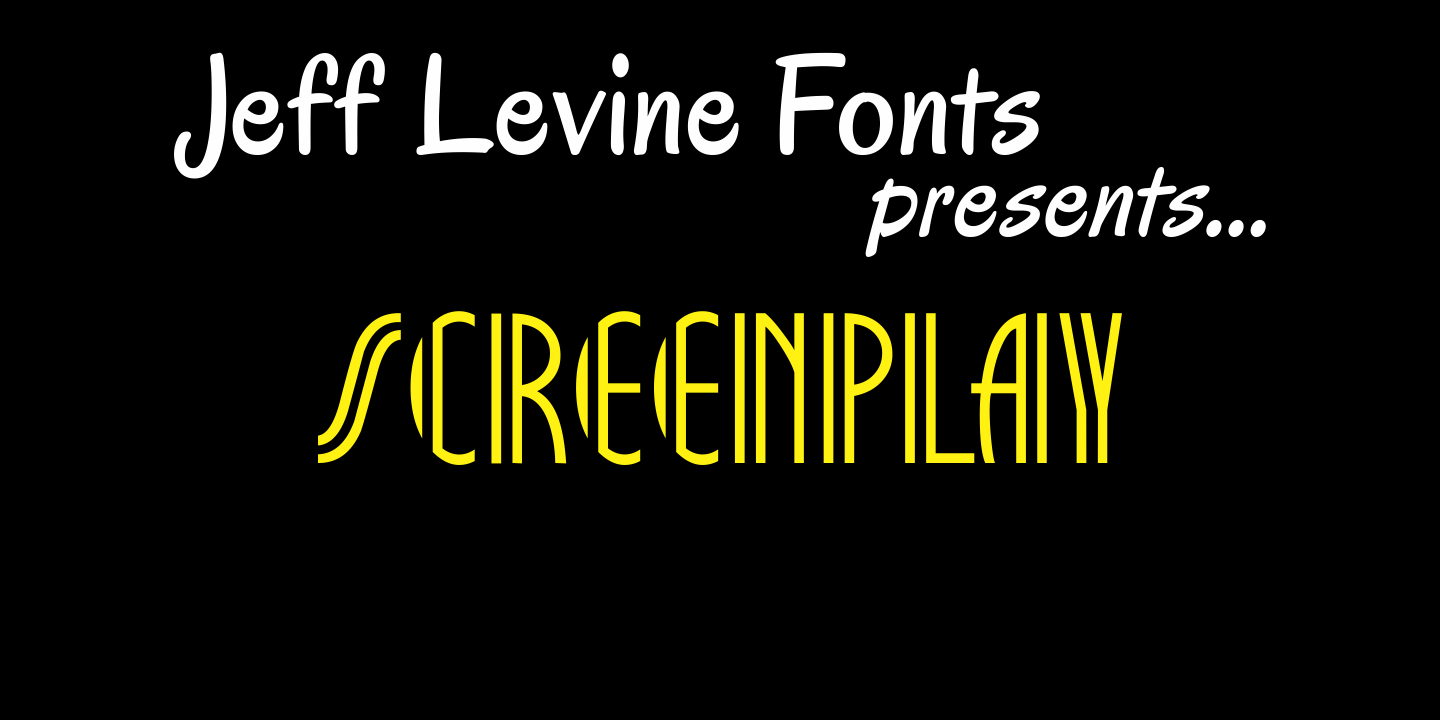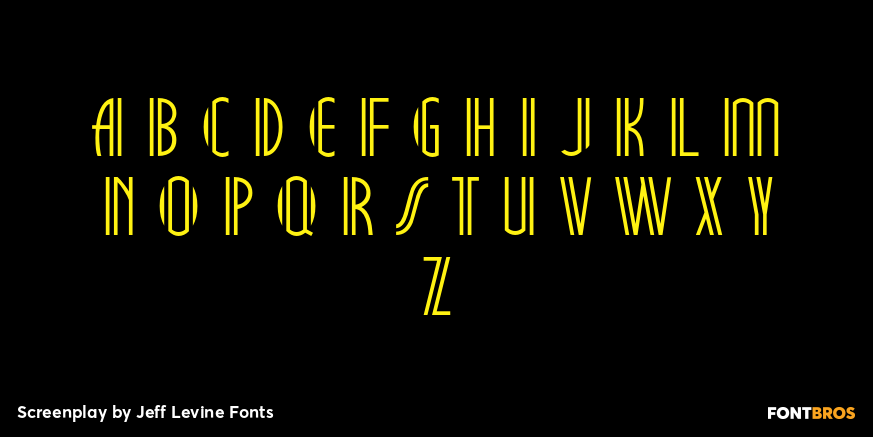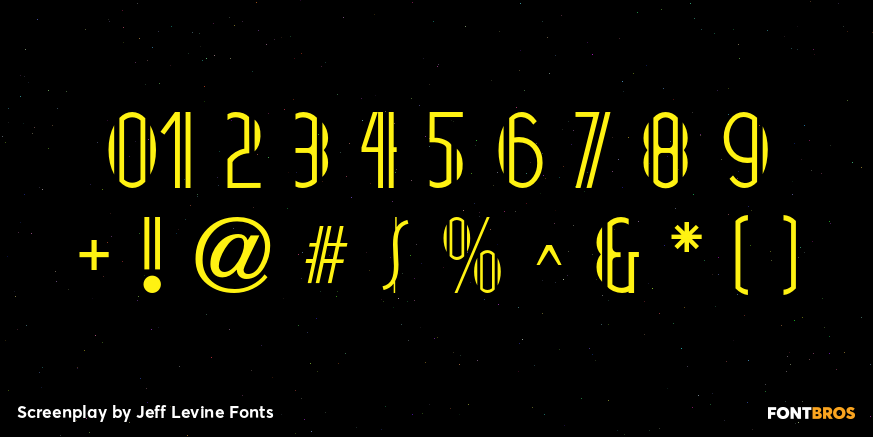
Screenplay
Screenplay JNL was modeled from the signage seen in an old photo of the RKO movie studios building circa the 1930s. This multi-line lettering is so classic of the Art Deco period. For best effect and readability, use wider spacing between letters. For single words or initials, regular spacing should do fine.
Screenplay by Jeff Levine Fonts